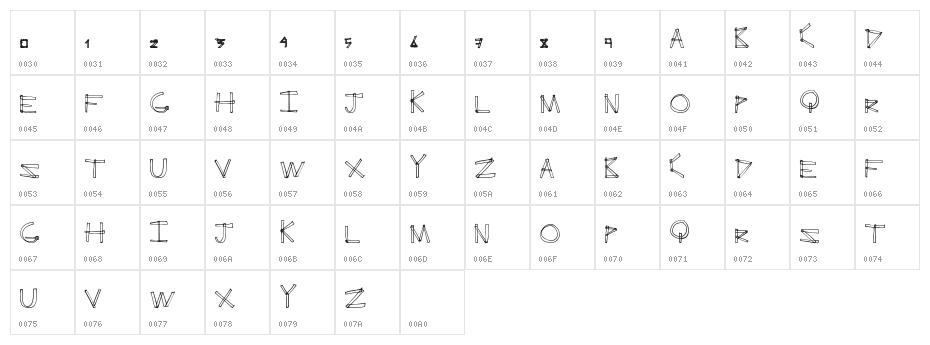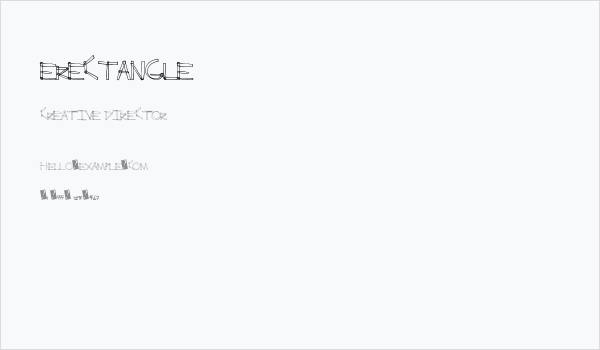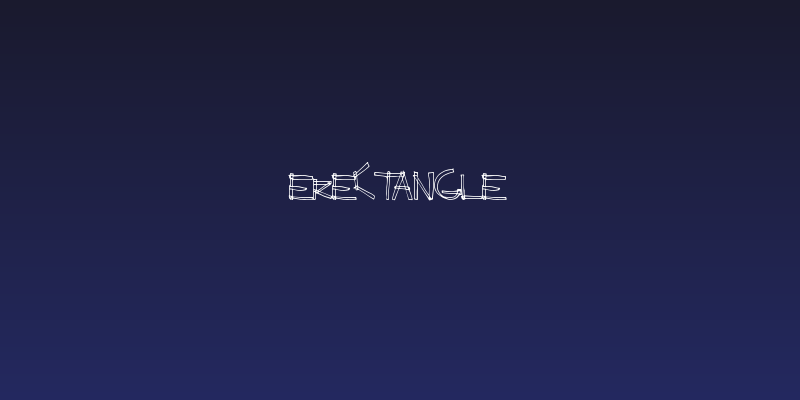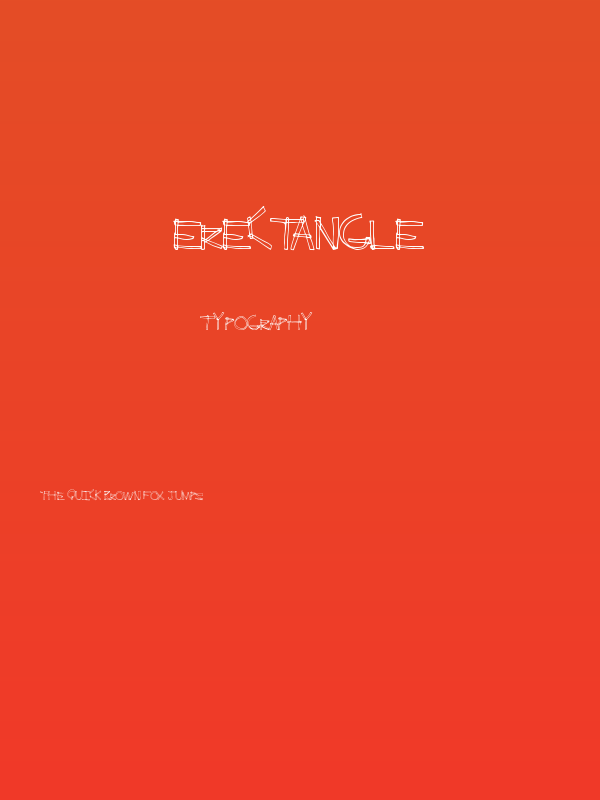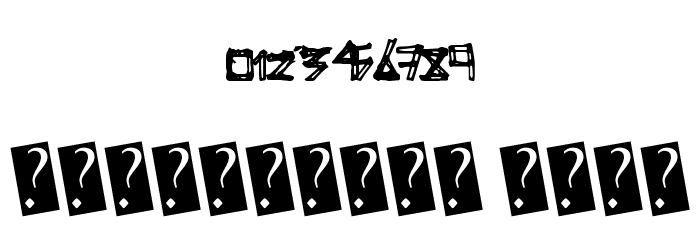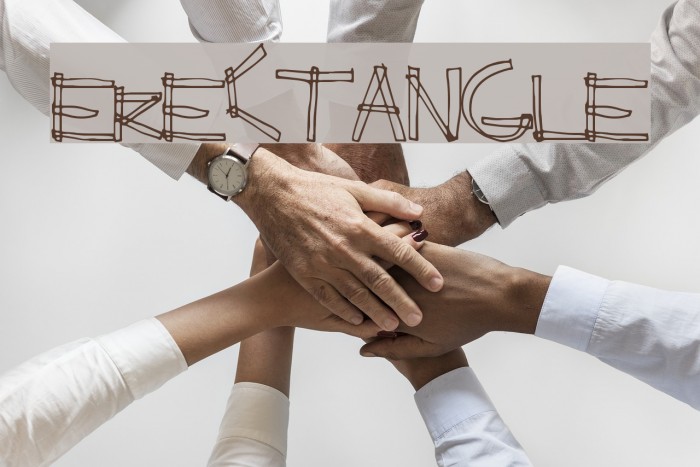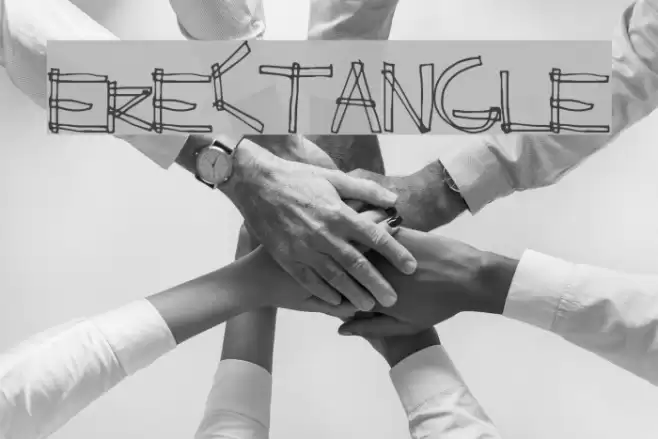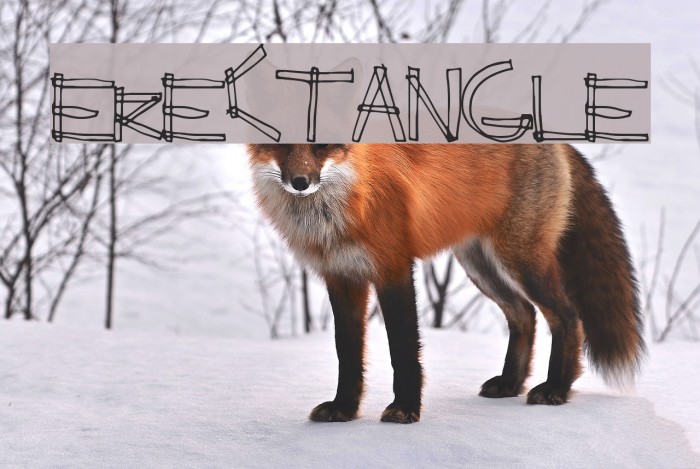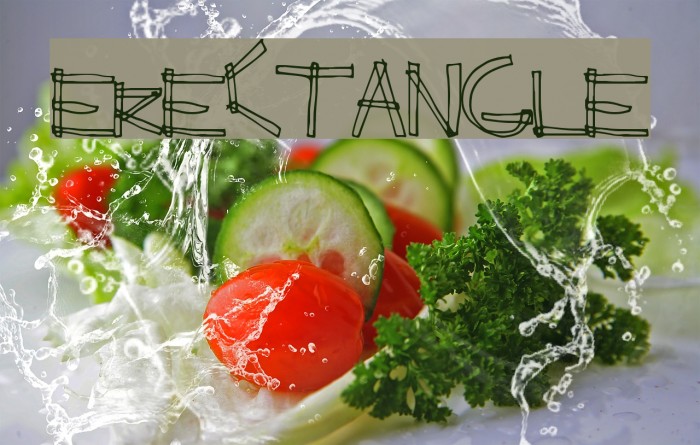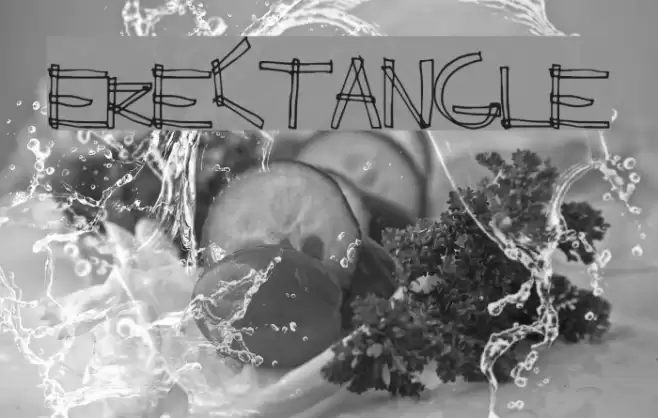
ErectAngle Font
ErectAngle Description
This font features a unique and artistic design, characterized by its angular and geometric shapes. Each letter is constructed with intersecting lines and angles, creating a sense of movement and energy. The uppercase and lowercase letters maintain a consistent style, with a playful yet structured appearance. The numbers and special characters follow the same design principles, ensuring a cohesive look across all elements. The font's distinct style makes it stand out, offering a modern and edgy aesthetic.
| Proposed Projects | Ideal for creative projects such as album covers, posters, and branding materials that require a bold and artistic touch. |